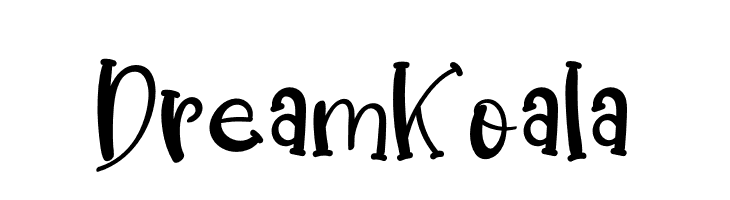
A playful and whimsical font with bold, curvy lines and decorative elements.
A playful, bold, and italicized font with whimsical embellishments.
A playful, hand-drawn font with a whimsical and informal style.
A playful, hand-drawn font with a whimsical and casual style.
A playful, hand-drawn font with a whimsical and informal style.